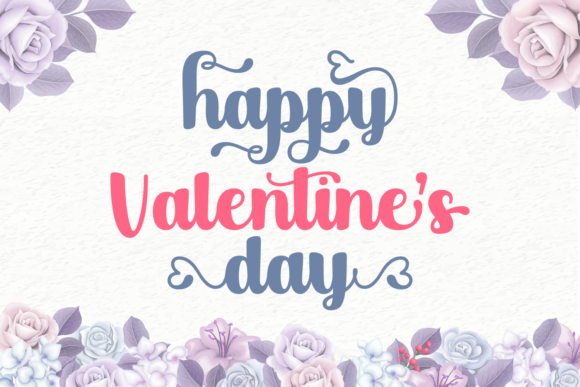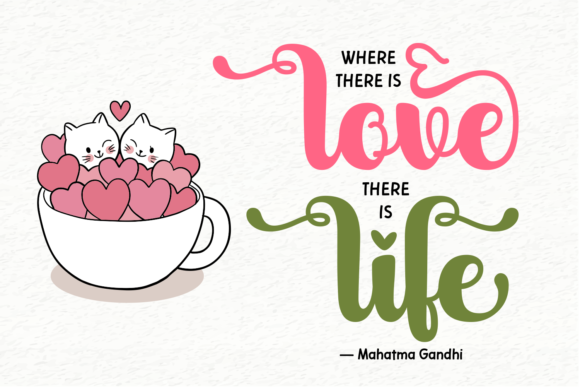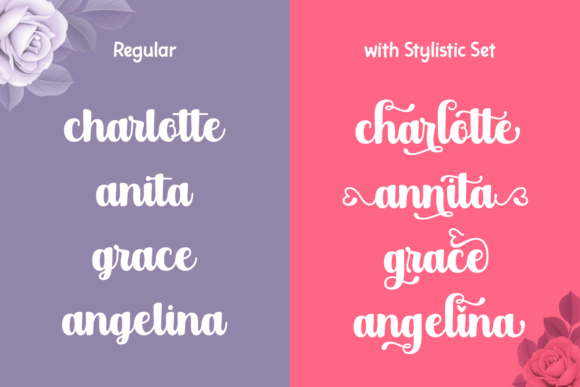
Eloyta Font: The Playful and Sweet Script Font for Your Designs
Are you looking for a font that can add a touch of playfulness and sweetness to your designs? Look no further than Eloyta Font! This beautiful script font is perfect for designers and crafters who want to create eye-catching and readable designs that stand out from the crowd. In this article, we’ll take a closer look at Eloyta Font and its features, and explore how you can use it to elevate your designs.
What is Eloyta Font?
Eloyta Font is a modern script font that is designed to be both playful and elegant. It features beautiful, flowing lines and a range of glyphs and swashes that can be used to add a touch of personality to your designs. Whether you’re creating a logo, a poster, or a social media graphic, Eloyta Font is the perfect choice.
One of the best things about Eloyta Font is that it is PUA (Private Use Area) encoded. This means that you can access all of the glyphs and swashes with ease, using a simple keyboard shortcut or by using a font editing software. With PUA encoding, you can easily insert special characters, such as ligatures, ornaments, and other decorative elements, into your designs. This makes it easy to add a touch of elegance and sophistication to your work.
Genuine, Eye-Catching, and Readable
Eloyta Font is designed to be genuine, eye-catching, and readable. The font features a unique and authentic style that is sure to grab the attention of your audience. At the same time, it is also highly readable, making it perfect for use in body text, headings, and titles. Whether you’re creating a design for a client or for your own brand, Eloyta Font is a great choice.
Eloyta Font is perfect for designers and crafters who want to create beautiful and unique designs. The font is versatile and can be used for a wide range of projects, including:
- Packaging and labels
Tips for Using Eloyta Font
Here are a few tips for using Eloyta Font in your designs:
- Use it as a headline font: Eloyta Font is perfect for use in headlines and titles, where you want to grab the attention of your audience.
- Pair it with a sans-serif font: Eloyta Font pairs well with sans-serif fonts, such as Arial or Helvetica. Try using it in combination with a sans-serif font for a modern and elegant look.
- Experiment with glyphs and swashes: With PUA encoding, you can easily access a range of glyphs and swashes. Experiment with different combinations to add a touch of personality to your designs.
Eloyta Font is a beautiful and versatile script font that is perfect for designers and crafters. With its playful and sweet style, PUA encoding, and readability, it’s the perfect choice for a wide range of projects. Whether you’re creating a logo, a poster, or a social media graphic, Eloyta Font is sure to make your designs stand out. So why not give it a try and see the difference it can make?